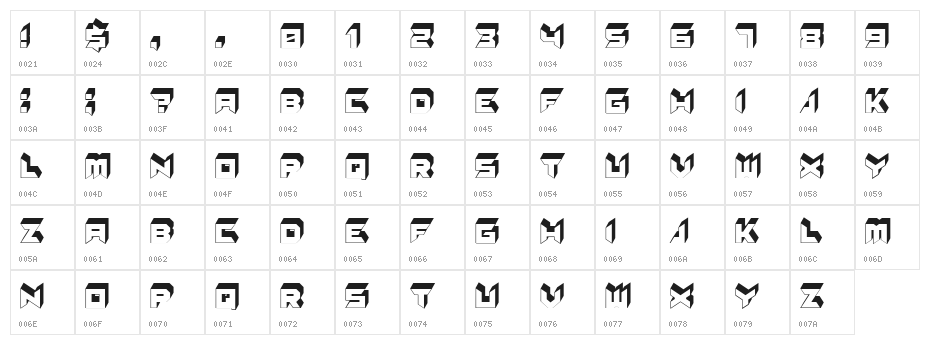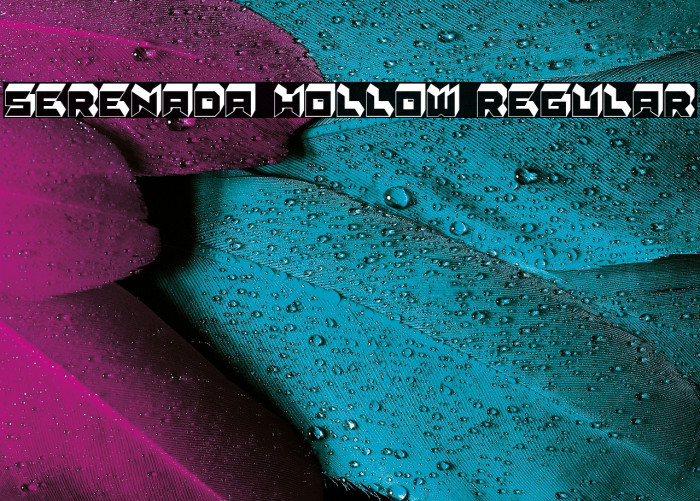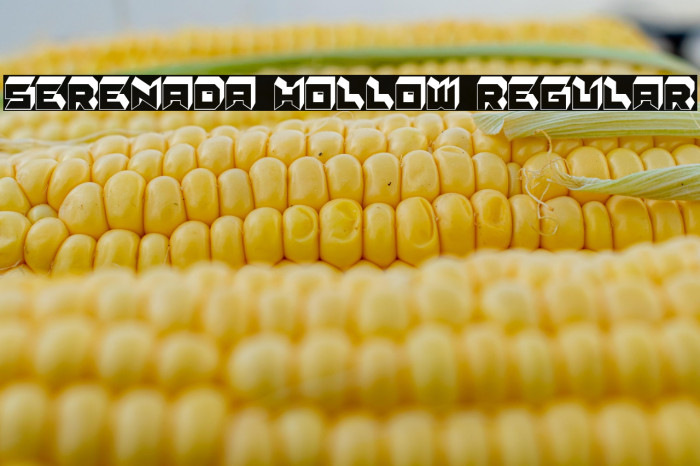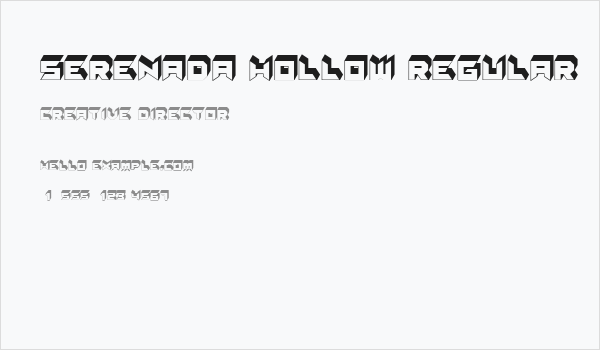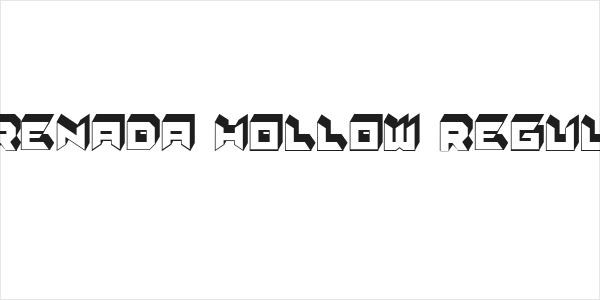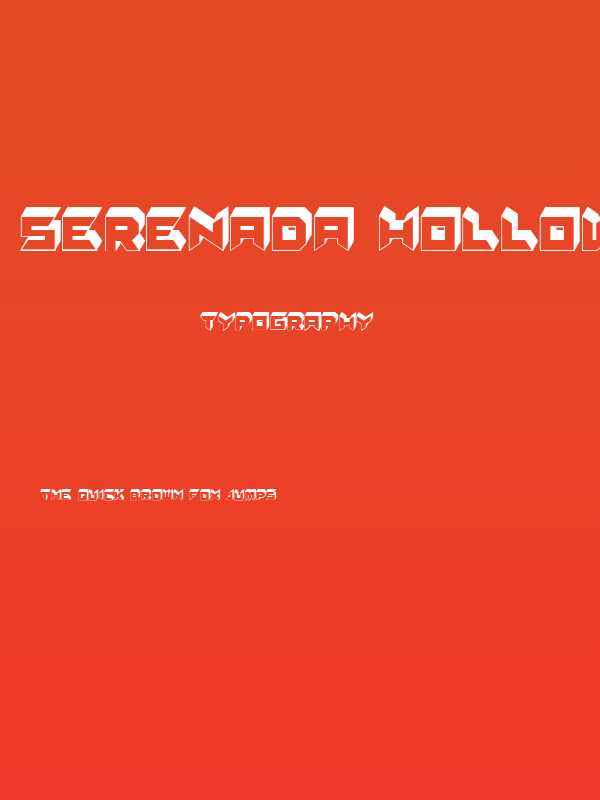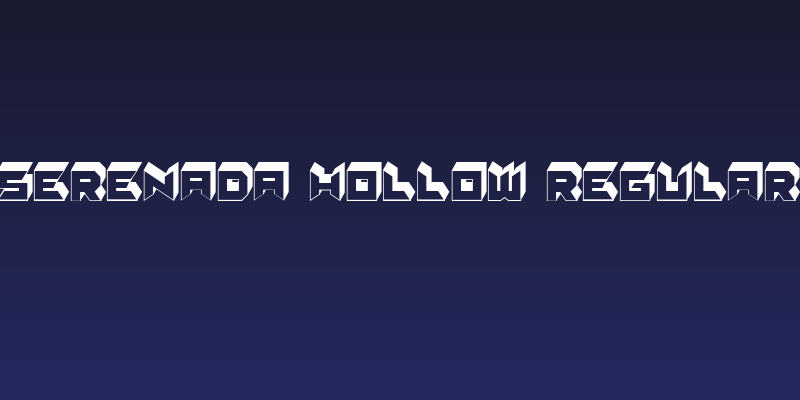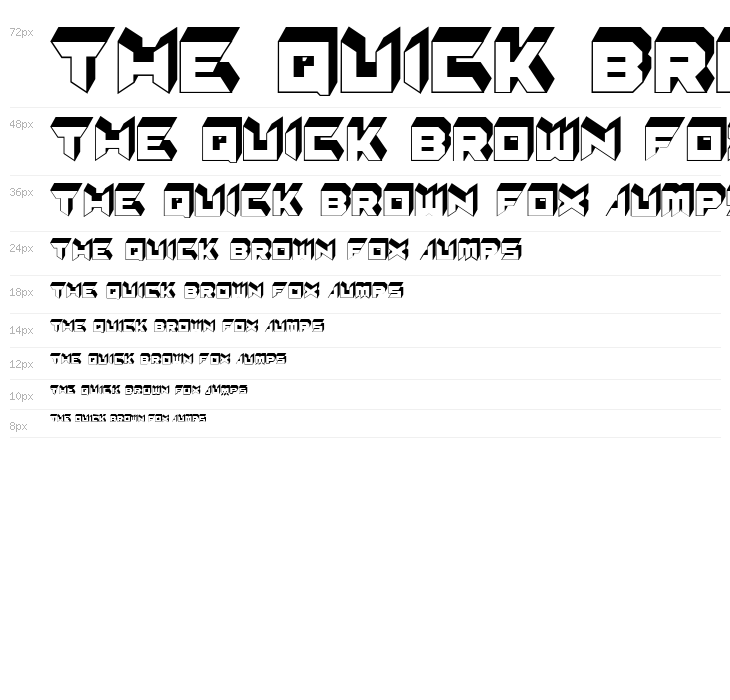
Serenada Hollow Regular Font
Serenada Hollow Regular Description
This font features a bold, geometric design with a hollow center, creating a striking three-dimensional effect. The characters are angular and blocky, with sharp edges and a futuristic aesthetic. The uppercase and lowercase letters maintain a consistent style, making it suitable for attention-grabbing headlines or titles. The numbers and special characters are designed to match the bold, impactful look of the alphabet, ensuring a cohesive appearance across all text elements.
| Proposed Projects | Ideal for futuristic branding, video game titles, posters, and any project requiring a bold, standout typeface. |